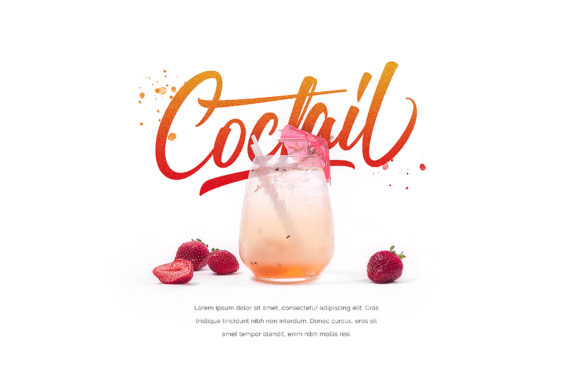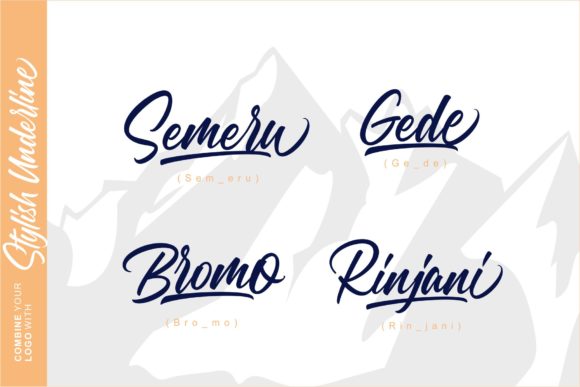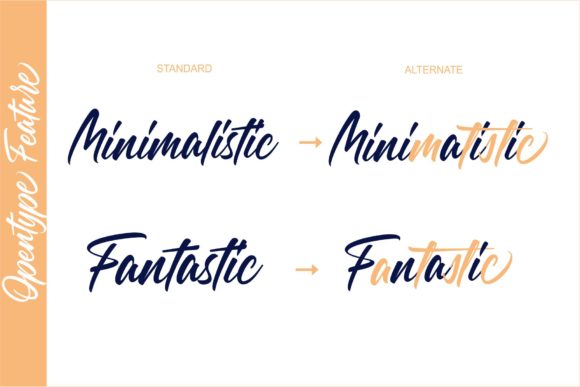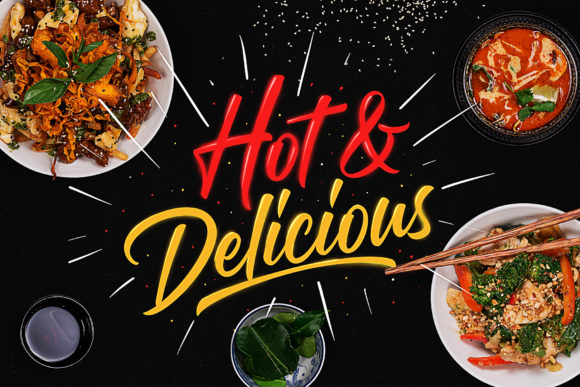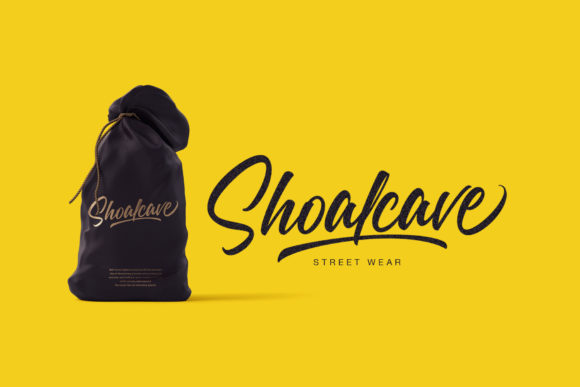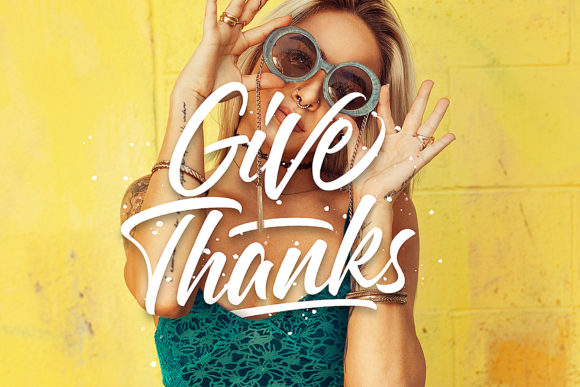
Carrington Font: The Ultimate Brush Script Font for Creative Designs
Are you a designer or crafter looking for a unique and striking font to elevate your creative projects? Look no further than the Carrington font, an amazing brush script font that exudes a dynamic and energetic style. With its versatility and wide range of applications, the Carrington font is an excellent addition to any designer’s toolkit.
What is the Carrington Font?
The Carrington font is a brush script font that boasts a distinctive, hand-crafted look. Its dynamic and energetic style makes it perfect for designs that require a bold and eye-catching font. The font’s unique characteristics, such as its varying line widths and fluid strokes, give it a personal and artistic feel that’s sure to make your designs stand out.
Uses of the Carrington Font
The Carrington font is incredibly versatile and can be used for a wide range of design projects, including:
- Titles and headings: Add a touch of elegance and sophistication to your titles and headings with the Carrington font.
- Signatures: Create unique and personalized signatures that make a lasting impression.
- Logotypes: Use the Carrington font to create custom logotypes that reflect your brand’s personality and style.
- T-shirt designs: Add a creative and artistic touch to your t-shirt designs with the Carrington font.
- Letterheads: Elevate your business correspondence with a professional and stylish letterhead featuring the Carrington font.
- Signage’s: Create eye-catching signage’s that grab attention and make a lasting impression.
- Labels: Use the Carrington font to create custom labels that add a personal touch to your products or packaging.
- Newsletters: Add a creative and artistic touch to your newsletters with the Carrington font.
- Posters: Create stunning posters that showcase your creativity and style with the Carrington font.
- Badges: Design custom badges that feature the Carrington font and add a touch of elegance to your designs.
Why Choose the Carrington Font?
So, why choose the Carrington font over other fonts? Here are just a few reasons:
- Unique and striking: The Carrington font has a distinctive and eye-catching style that’s sure to make your designs stand out.
- Versatile: The Carrington font can be used for a wide range of design projects, from titles and headings to signatures and logotypes.
- Dynamic and energetic: The Carrington font exudes a dynamic and energetic style that’s perfect for designs that require a bold and creative font.
- Easy to read: Despite its artistic and creative style, the Carrington font is easy to read and understand, making it perfect for designs that require a clear and concise message.
Tips for Using the Carrington Font
Here are a few tips for using the Carrington font in your designs:
- Use it sparingly: While the Carrington font is stunning, it can be overwhelming if used excessively. Use it sparingly to add a touch of elegance and sophistication to your designs.
- Pair it with a simple font: Pair the Carrington font with a simple font to create a striking contrast that adds visual interest to your designs.
- Experiment with colors: The Carrington font looks stunning in a variety of colors. Experiment with different colors to find the perfect shade that matches your brand’s personality and style.
In conclusion, the Carrington font is an amazing brush script font that offers a dynamic and energetic style perfect for a wide range of design projects. Its versatility, unique characteristics, and ease of use make it an excellent addition to any designer’s toolkit. Whether you’re a designer, crafter, or simply someone looking for a creative font, the Carrington font is sure to impress. So, why not give it a try and see how it can elevate your designs to the next level?